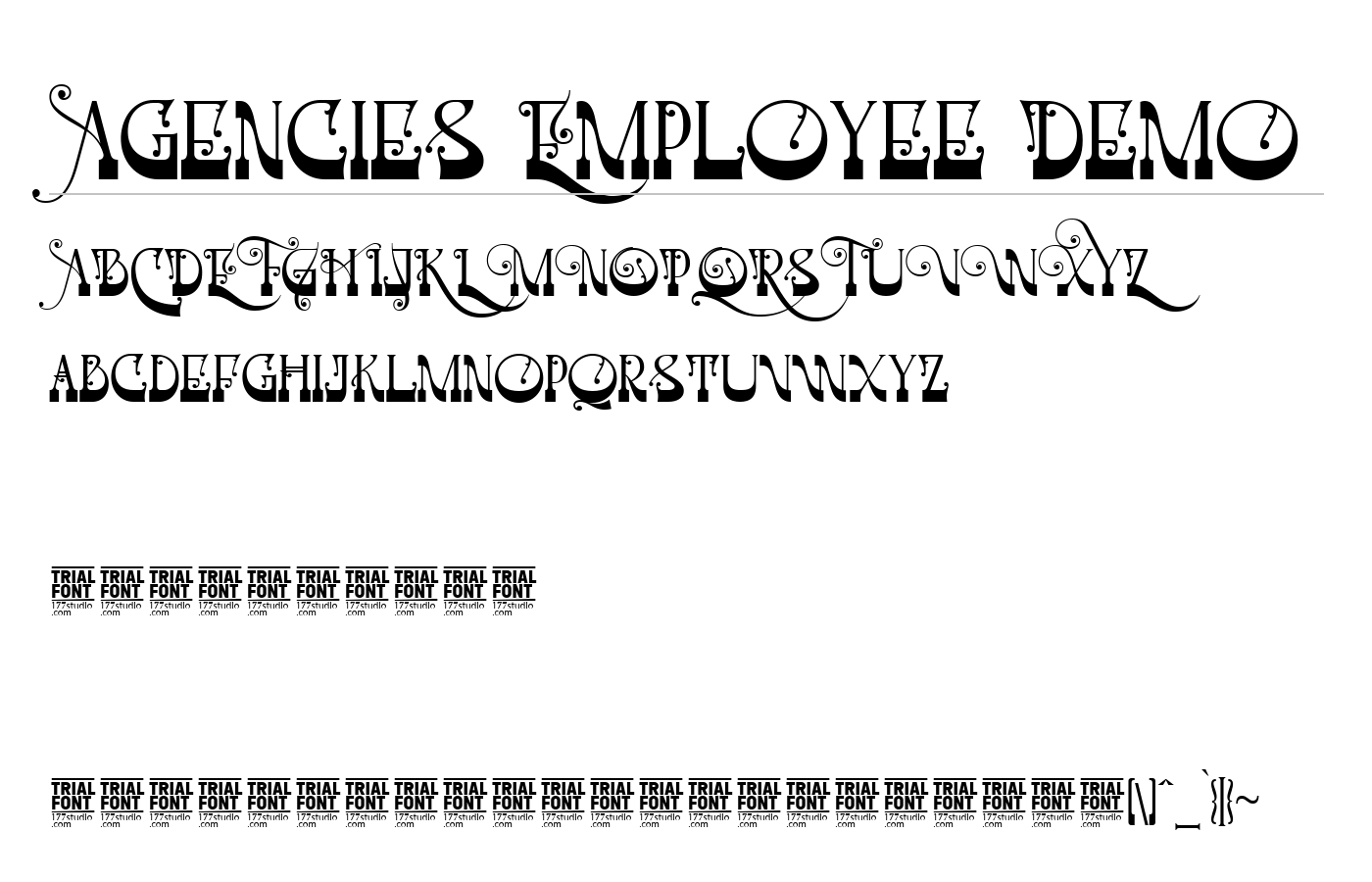
Agencies Employee Demo is a highly decorative serif typeface with a dramatic flair, featuring bold, thick strokes contrasted by delicate, ornamental curls and swashes. This font combines vintage elegance with playful, artistic details, making it ideal for eye-catching headlines, logos, and creative branding where a unique, sophisticated, and whimsical style is desired. Its distinctive character shapes and strong presence make it less suited for body text but perfect for designs that aim to stand out.
Agencies Employee Demo Font
About Agencies Employee Demo Font